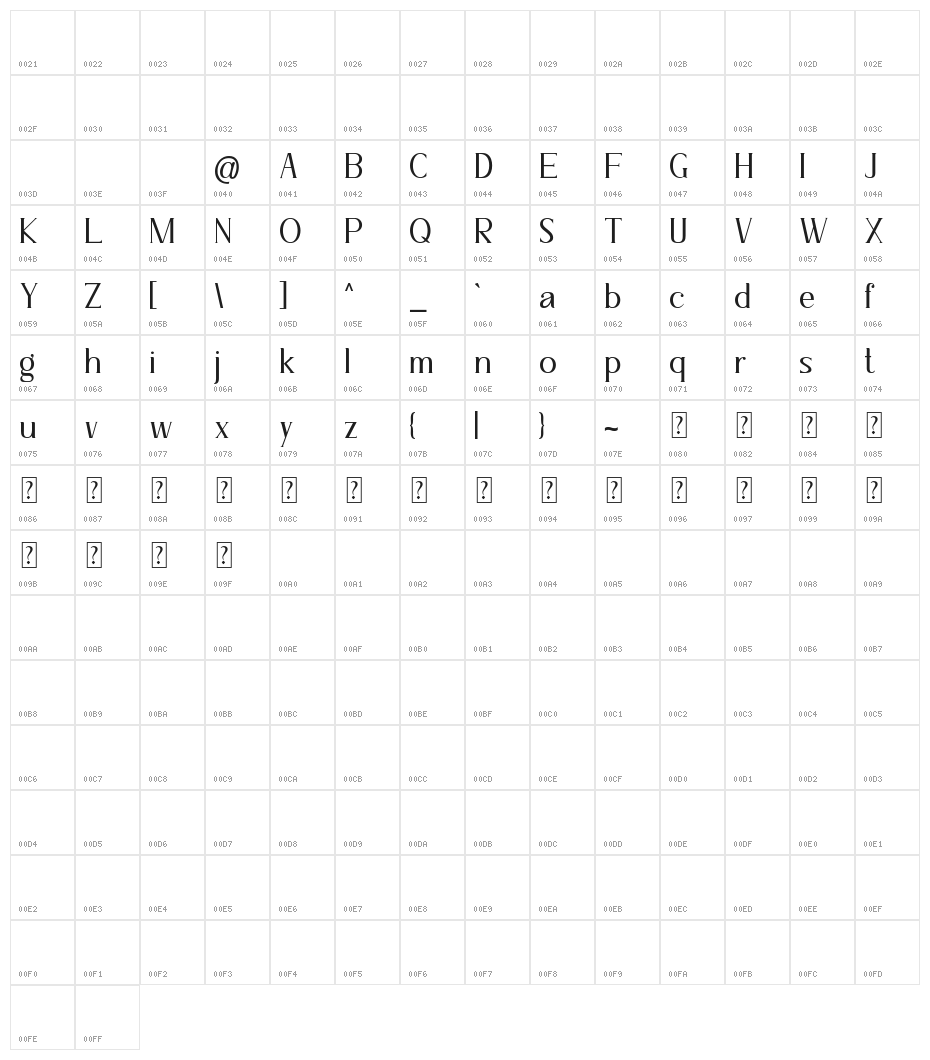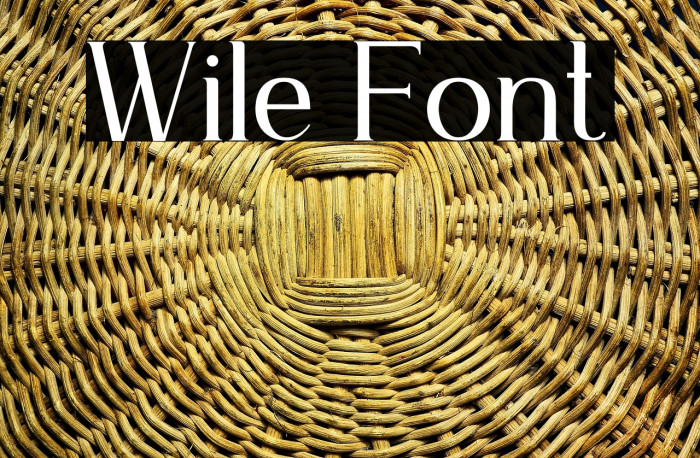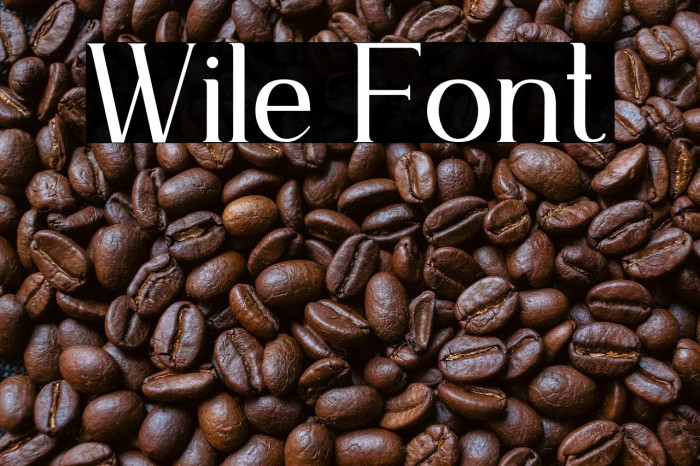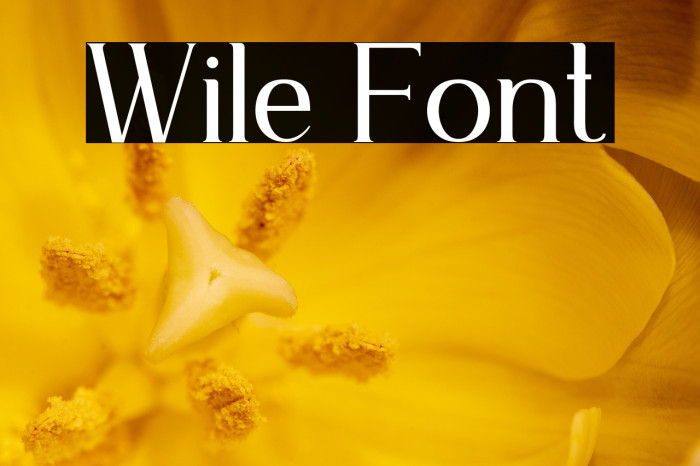
Wile Font
Wile Description
This font features a classic serif style with elegant, thin strokes and subtle contrast. The uppercase letters are tall and slightly condensed, giving them a sophisticated appearance. The lowercase letters maintain a consistent style with smooth curves and sharp serifs, enhancing readability. The overall design is timeless, making it suitable for a variety of applications. The font's clean lines and balanced proportions make it ideal for formal documents, branding, and editorial design. Its versatility allows it to be used in both digital and print media, providing a professional and polished look.
| Width | Condensed |
| Overall Style | Classic |
| Use Case | Headlines, Body text, Logos |
| Proposed Projects | Perfect for book covers, formal invitations, branding, and editorial layouts. |